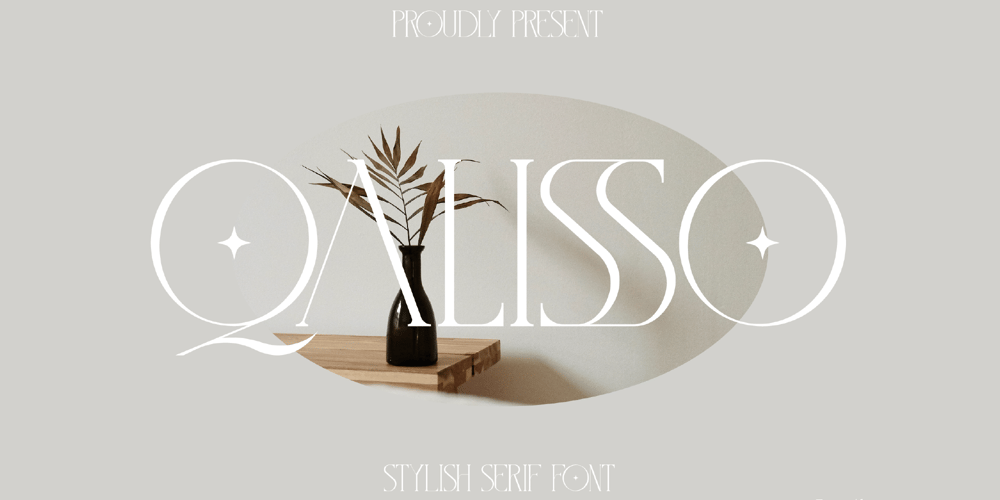
Qalisso Font Family was designed by Heru Utama Putra and published by Letterena Studios. Qalisso contains 2 styles and family package options. Qualisso is a modern and classic serif font with a unique style & modern look.This typeface is perfect for an elegant & luxury logo, book or movie title design, fashion brand, magazine, clothes, lettering, quotes, and so much more.